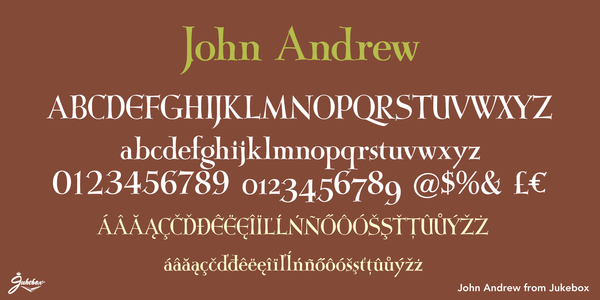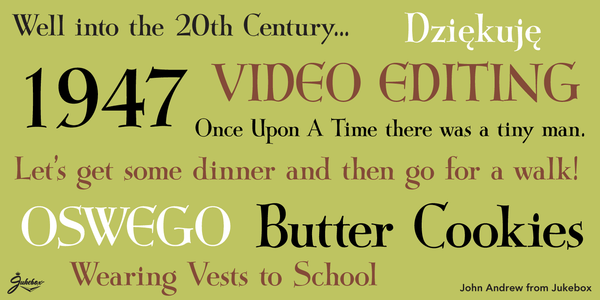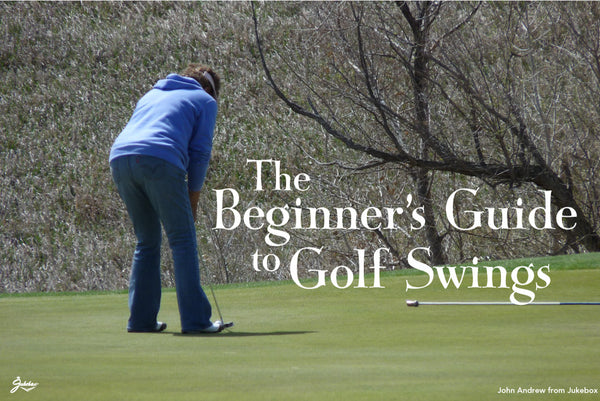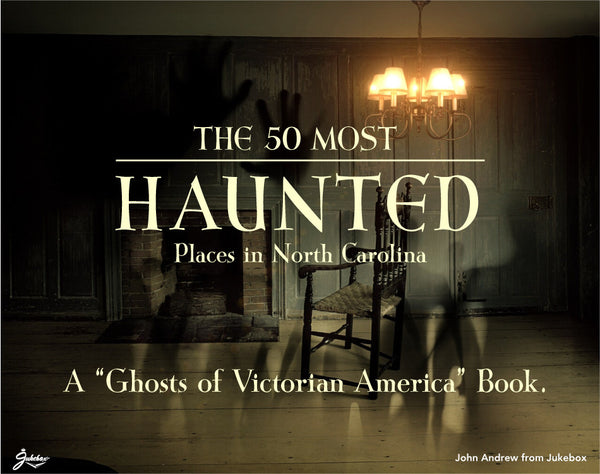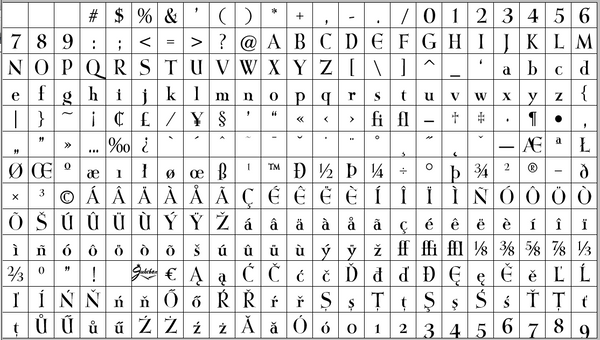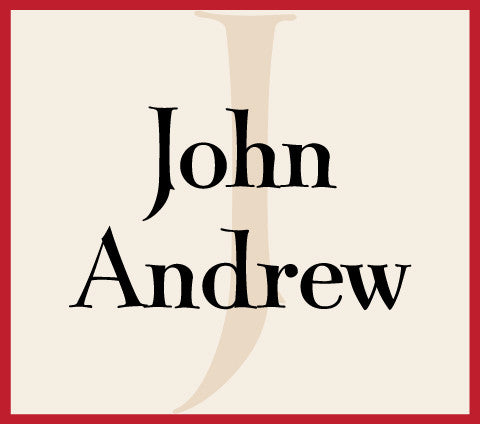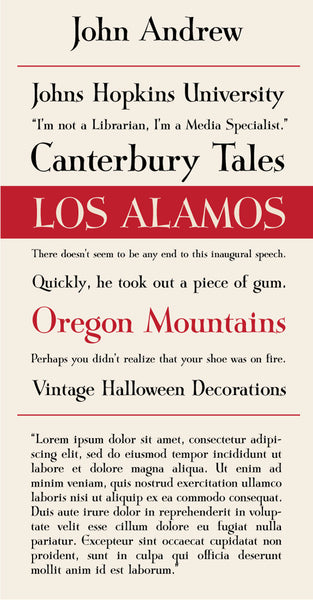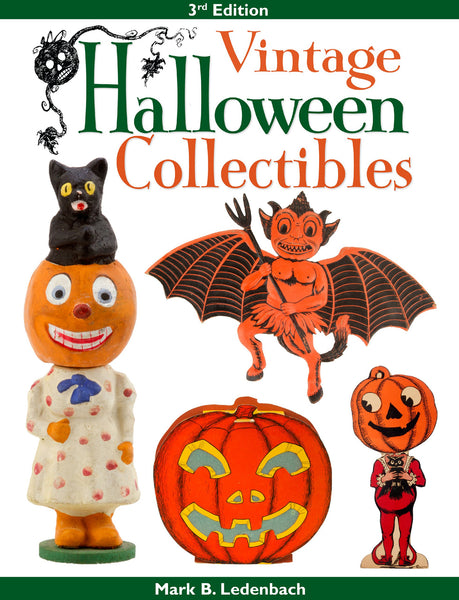
John Andrew
John Andrew is a serif font that has some hand drawn and uncial influences. Inspired by a hand lettered sample in an old "how to" book on calligraphy, John Andrew is named for the designer's father. The font has an elegance and grace to it that makes it a fantastic choice for a display face. Yet, it still retains a warmth that makes it very approachable.
Notable Use: John Andrew was used on the cover of and for the pagination in the third edition of Mark B Ledenbach's "Vintage Halloween Collectibles", published in 2014.